Cursive font styles for tattoos usually imprint the personal aspect of the body owner through personalized handwriting. However, the visual aesthetics of permanent tattoos are worthy of attention, too. Our fonts cater to those needs with their either classic-inspired or modern-inspired appearances.
- The classic cursive fonts typically imitate the neat and posh writing of a penman.
- Simplified letter shapes and high readability are prioritized in modern cursive fonts.
- Modern fonts also play well in showing someone’s identity.
15 Classic Cursive Fonts for Neat, Posh, or Graceful Looks
According to Ozerova and Serikov (2021), cursive fonts, the specified style of handwriting, rank first as the one that can convey the various feelings of the tattoo’s owner. But there are many different styles of cursive fonts for tattoos to choose from. Below is the first list of cursive fonts we have sorted that have classic styles.
1. Eastrya Handwritten Script Font
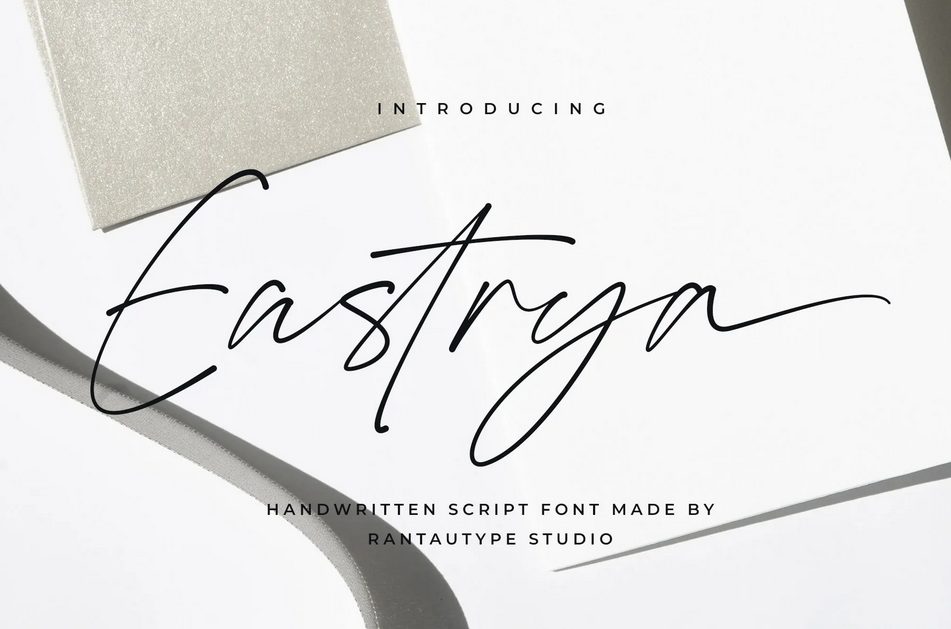
Eastrya’s flourishes and ligatures are long yet simple. Stay classy by carving your inspirational quotes with a flowy font.
2. Bristeny Handwritten Font
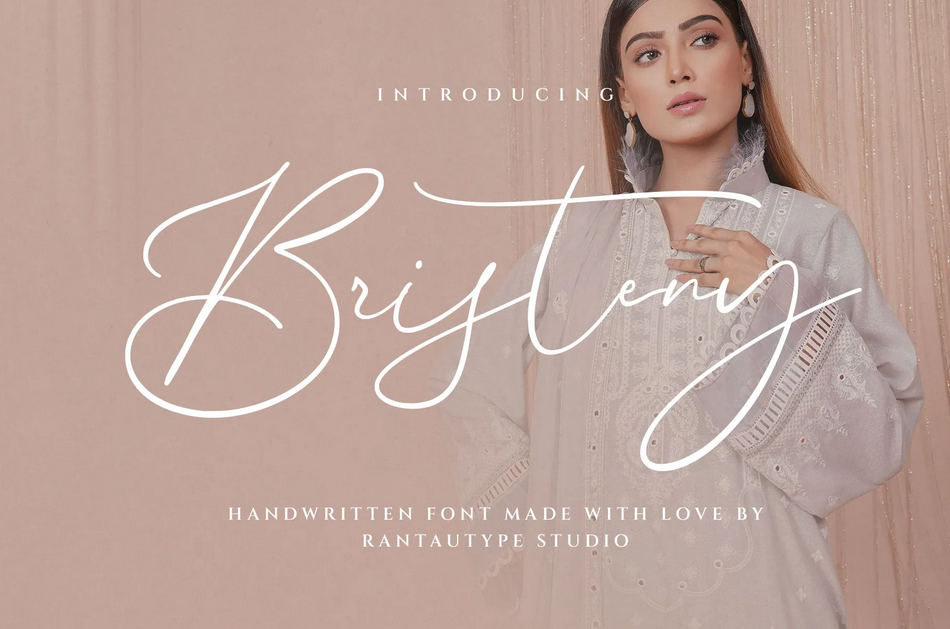
Bristeny’s descenders are a graceful combination of long and rounded ones. The font’s lowercase letters are also painted smaller than the capital letters.
3. Ganttecy Signature Font
Ganttecy’s steady thickness complements the graceful appearance of the smooth strokes. Carve your loved ones’ names with the font for a neat and sweet look.
4. Herattey Signature Font
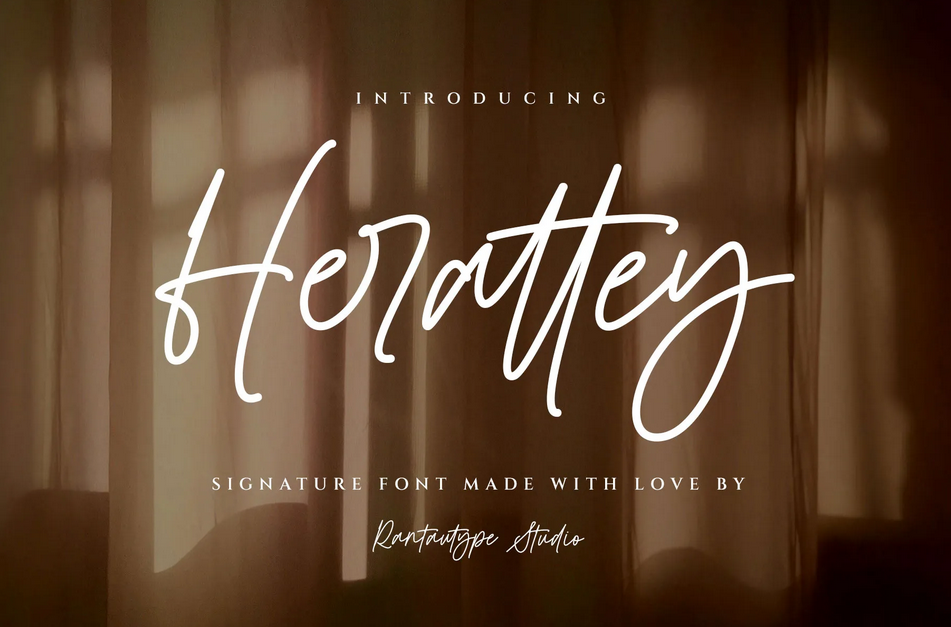
Herattey’s stylish letter shapes are visually appealing. Its swashes are slightly sophisticated, which contributes to the font’s elegance.
5. Magonda Casual Script Font
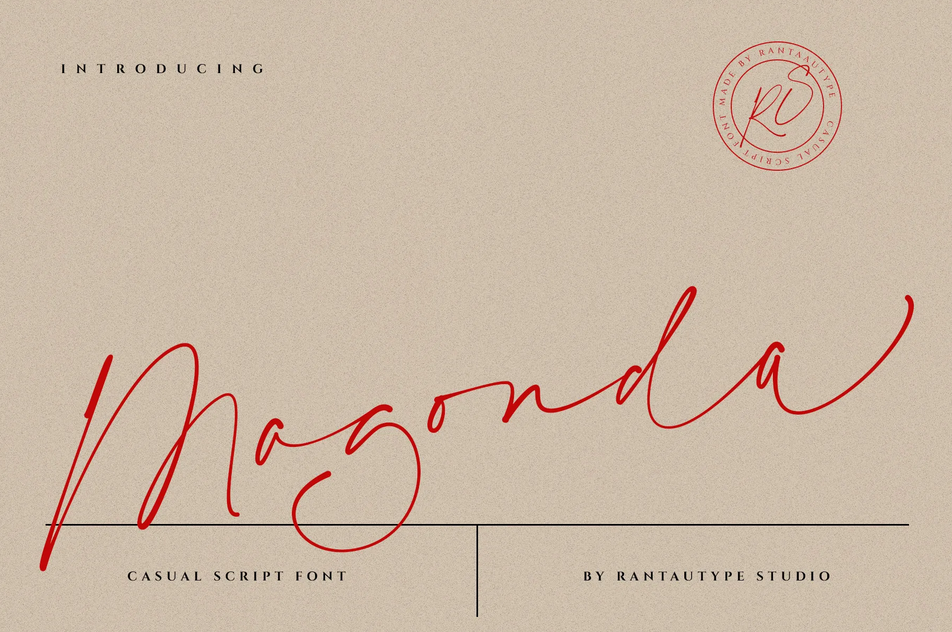
Magonda’s light strokes determine their casual undertone, but the font’s fluidity stays beautiful. Paint a precious word as your tattoo for posh yet light-hearted looks.
6. Batherga Signature Font
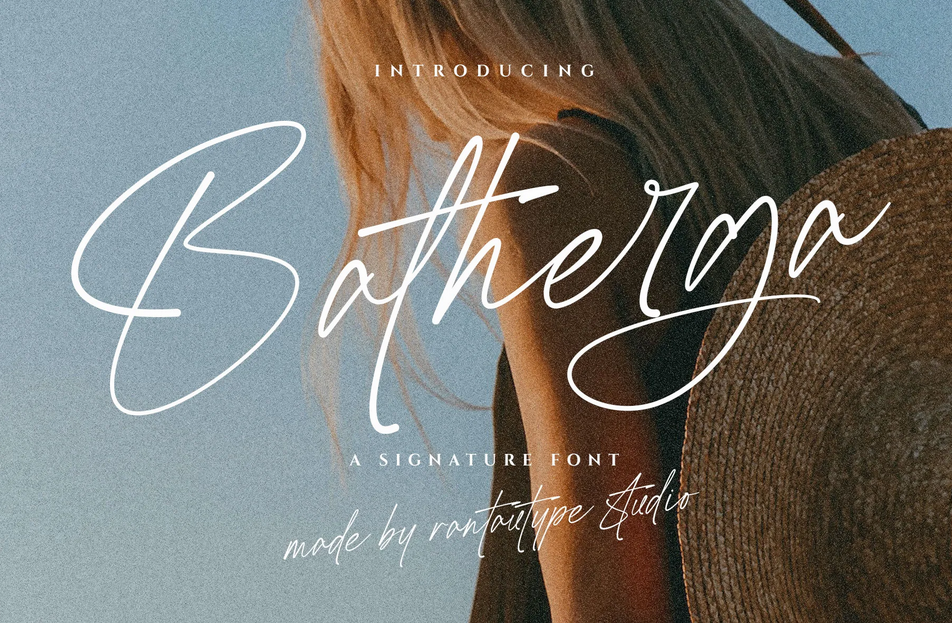
Batherga is one of the cursive font styles for tattoos that exhibits exaggerated descenders and arrow-like ligatures.
7. Morneta Calligraphy Script Font
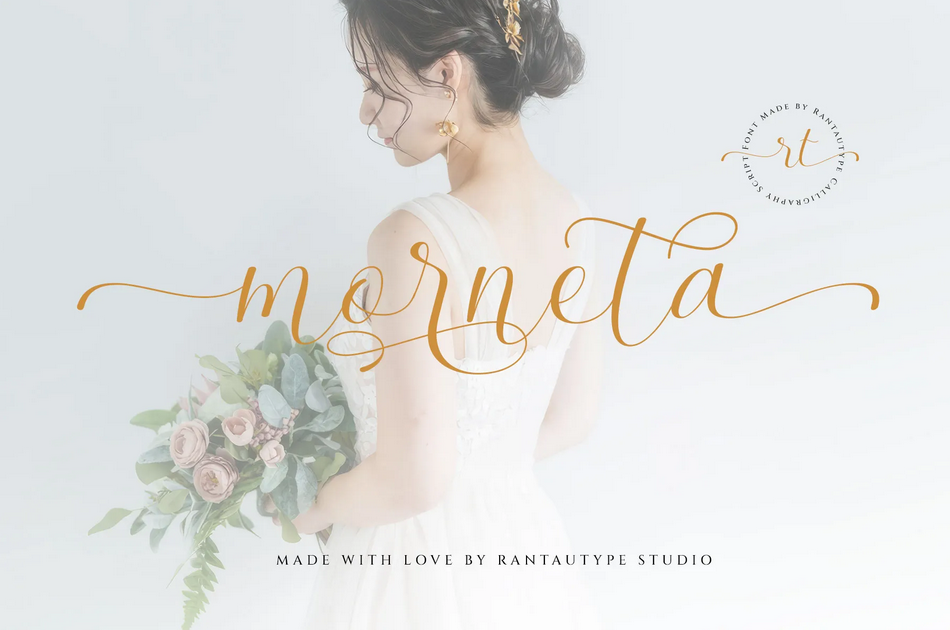
Morneta’s careful strokes and poised flourishes are a refined delicacy as one of the tattoo fonts for girly tattoos. Apply the font’s ethereal femininity as quote tattoos.
8. Kastiny Handwritten Script Font
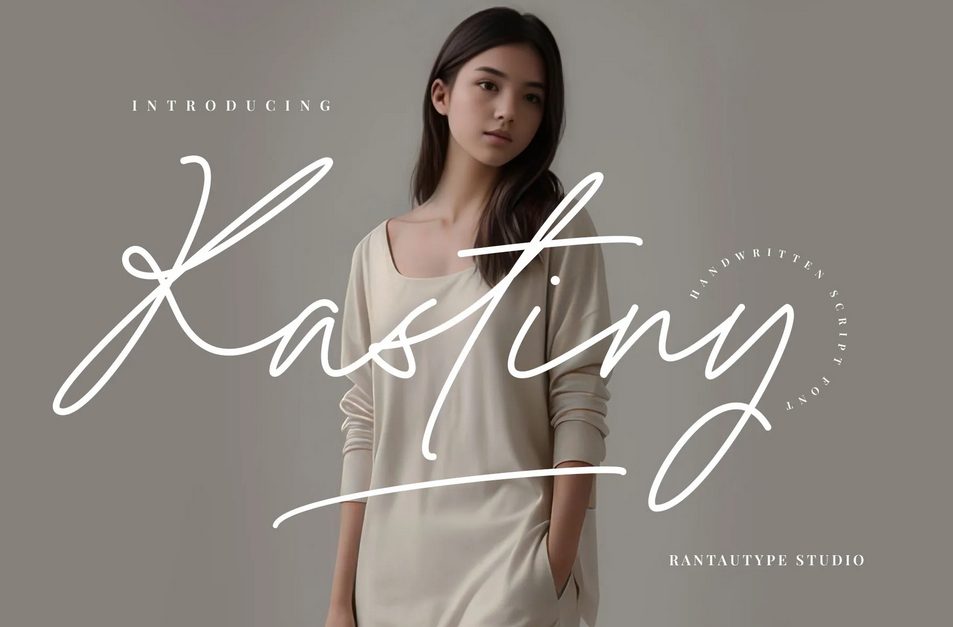
Kastiny’s calm-looking weight accompanies the handcrafted strokes perfectly. Engrave your significant other’s name with the sweet font.
9. Jasline Calligraphy Script Font
Jasline’s even baseline embodies the font’s elegance. Fancy swashes can also make your tattoos more glamorous.
10. Devoncy Handwritten Font
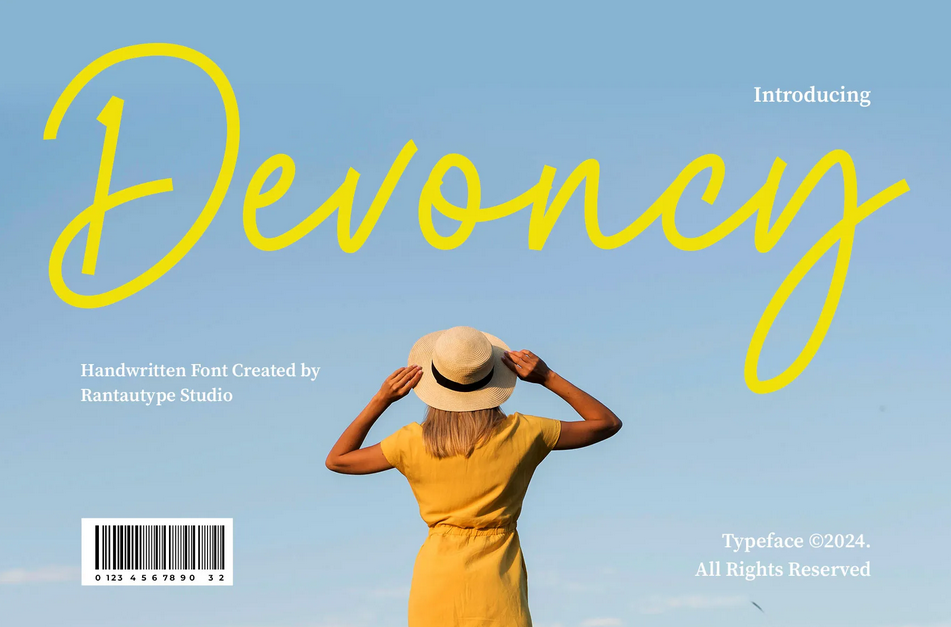
Devoncy’s charm is the stable thickness and stiff terminals that can support the readability of your tattoos.
11. Jullieta Signature Script Font
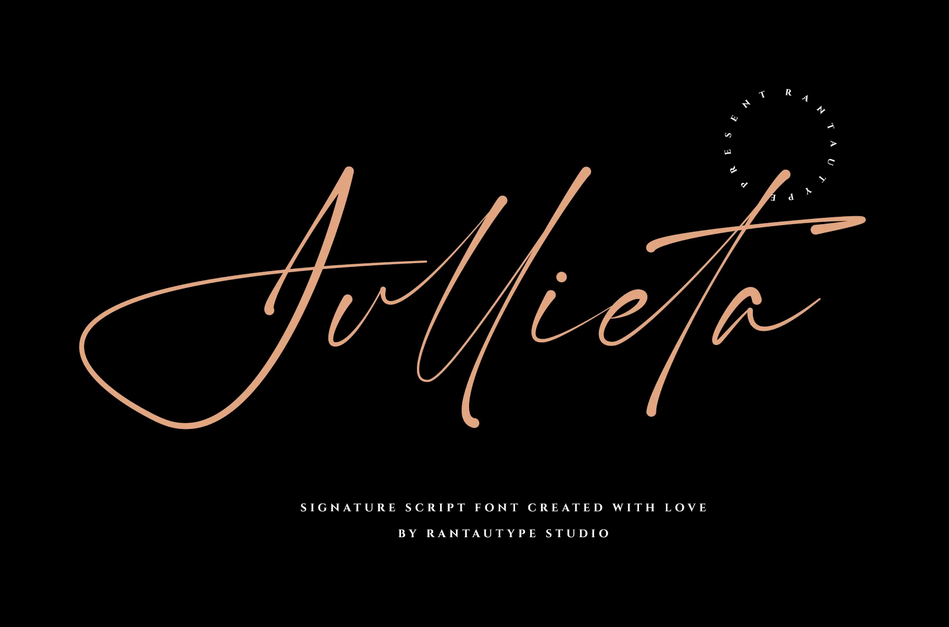
Jullieta’s romantic contrast and polished ligatures are as passionate as the strong affection of Juliette. Take advantage of the flourishes for posh-looking tattoos.
12. Bryan Richard Signature Font
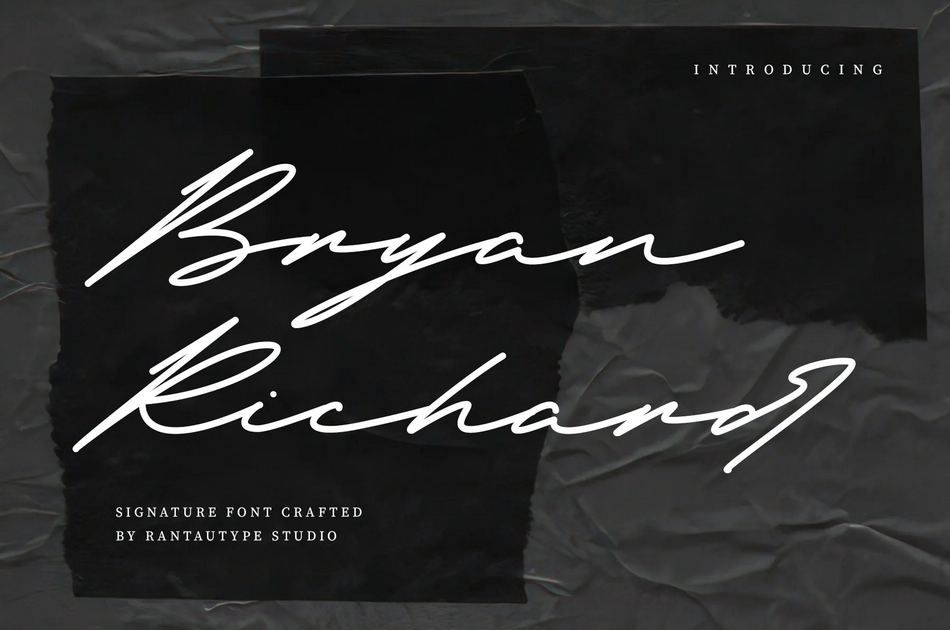
Bryan Richard’s liquid strokes are so smooth. They make the handwritten letters appear noble and strong.
13. Brityna Calligraphy Font
Brityna’s thickness is constant. The font’s artistic letterforms are fairly simple yet gorgeously breathtaking.
14. Bettasy Signature Font
Bettasy’s dramatic descenders complete the horizontal ligatures and modest strokes of the font. Use it to highlight a word of your neat-looking tattoos.
15. Brandise Signature Font
Brandise is one of the cursive font styles for tattoos that showcases a loose rhythm and curvy ligatures. Embrace the font’s posh vibe for your classy tattoos.
15 Modern Cursive Fonts for Trendy-Looking Tattoos
If the classic style does not suit you, these modern style cursive fonts we have chosen carefully for you might suit well.
1. Grettina Modern Handwritten Font
Grettina’s versatile contrast and fashionable letter shapes will present an appealing sight of tattoos with a modern twist.
2. Bramody Modern Script Font
Bramody displays boldness that elevates the font’s readability. Show off your tattoo quotes with the font’s cursive ligatures and swashes.
3. Bristega Modern Script Font
Bristega will inscribe both elegance and prominence through the font’s dramatic flourishes and clean strokes.
4. Brestina Retro Display Font
Brestina’s rounded letter forms give a sense of playfulness, while the noticeable looping swashes and curvy terminals exude the aesthetic vibe of the font.
5. Starlium Authentic Script Font
Starlium’s thickness makes the font look sparkly. The font’s trendy alternates and swashes will be flawless for trendy-looking tattoos.
6. Ranteya Classy Script Font
Ranteya is one of the cursive font styles for tattoos that is pleasing through the font’s extravagant thickness and condensed strokes.
7. Demorya Bold Script Font
Demorya’s heavyweight is daunting, but the elegant strokes with condensed spacing turn the font into a charismatic-looking one.
Also Read: Want to Code Faster? 15 Best Font for Programming in 2025
8. Bindacy Vintage Elegant Script Font
Bindacy’s slanted letter shapes are mesmerizing. The font’s elegance is also elevated by the distorted semi-circle ovals and a straight baseline.
9. Dastery Modern Script Font
Dastery’s U-shape ligatures and steady thickness are as refreshing as breathing fresh air after staying indoors for too long.
10. Begalin Modern Script Font
Begalin’s alternates are fresh and extraordinary. The font’s subtle contrast and bright swashes will make your tattoos more youthful.
11. Homeyard Modern Handwritten Font
Homeyard embodies the homely and relaxing atmosphere through the font’s trendy strokes, contrast, and terminals.
12. Antagon Brush Script Font
Antagon is one of the cursive font styles for tattoos that presents rough edges that illustrate the brush style with a horizontal baseline.
13. Misellya Brush Script Font
Misellya’s flexible contrast and shaggy strokes bring out the casual aura of the font. Use the flourishes to add a trendy touch to your tattoos.
14. Arthegis Script Monoline Font
Arthegis offers round letter forms with more than 165 outstanding swashes and unique alternates.
15. Belguri Script Font
Belguri’s natural strokes and balanced contrast will make your tattoos more attractive to people who lay eyes on them.